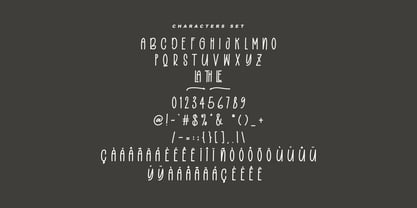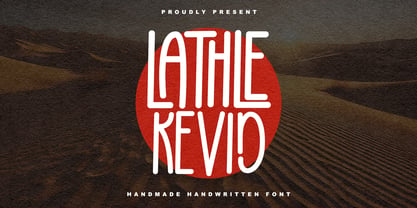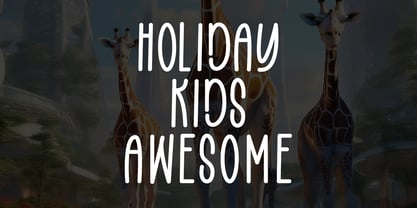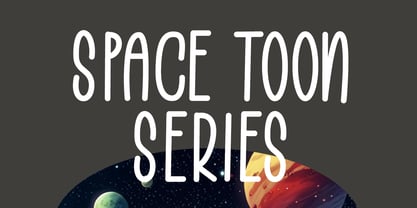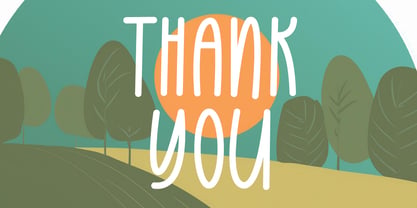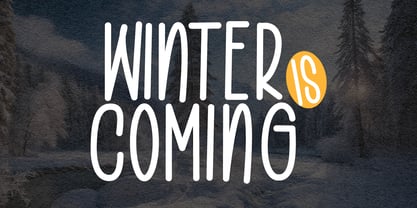
MC Lathle Kevid
by Maulana Creative
The MC Lathle Kevid Font Family was designed by Gilang Maulana and published by Maulana Creative. MC Lathle Kevid contains 1 styles. More about this family
Lathle Kevid is a handmade modern retro font. With medium stroke, fun character with a bit of ligature and alternate. To give you an extra creative work Lathle Kevid font support multilingual more than 100+ language. This font is good for logo design, Social media, Movie Titles, Books Titles, a short text even a long text letter and good for your secondary text font with sans or serif. Make a stunning work with Lathle Kevid font.
Designers: Gilang Maulana
Foundry: Maulana Creative